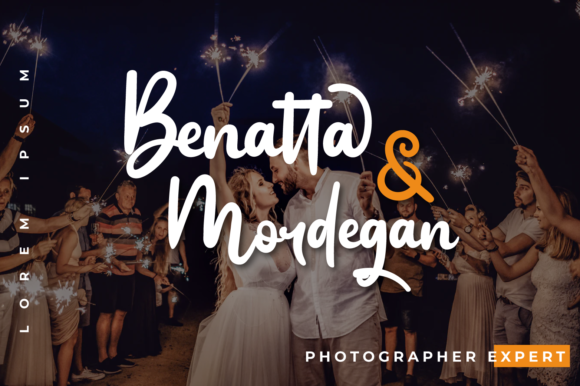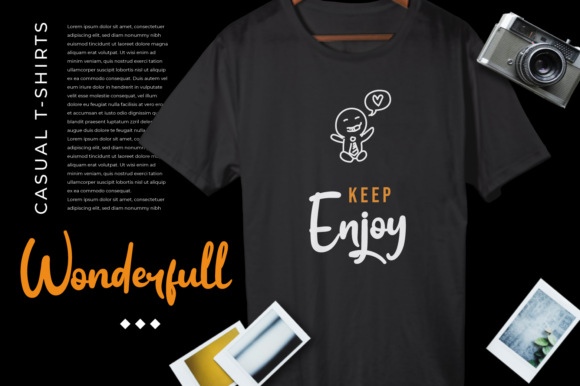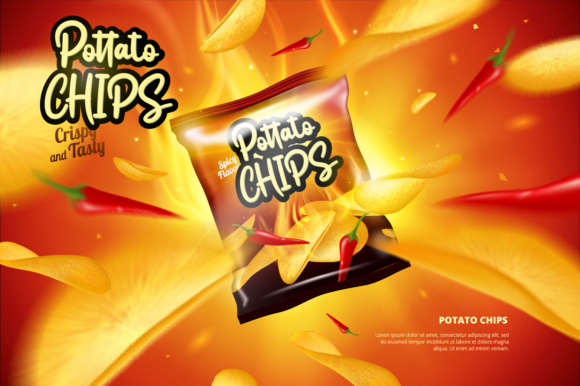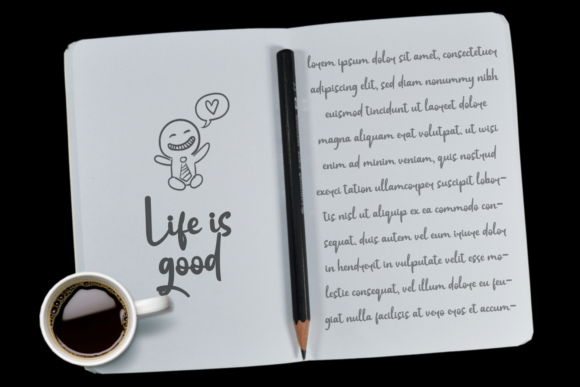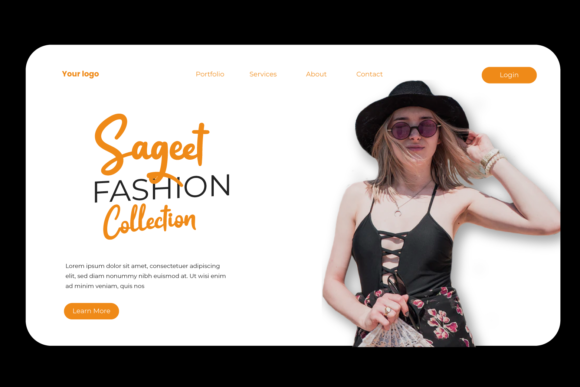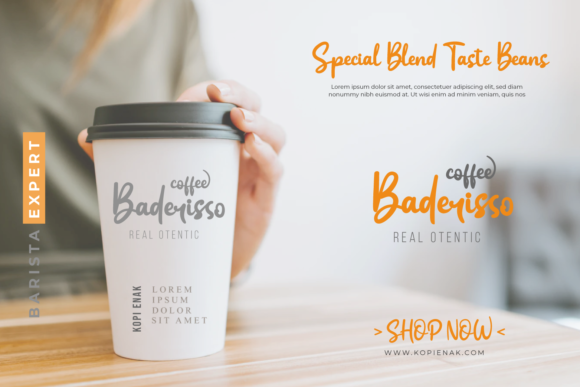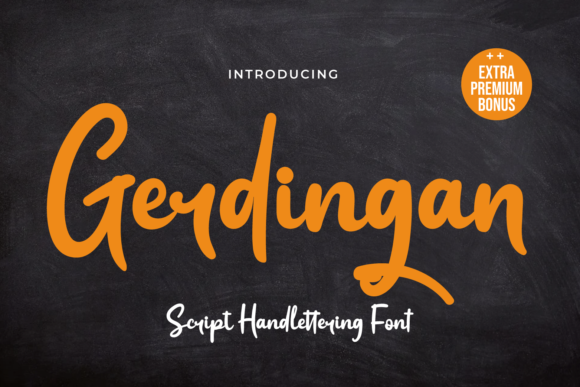
Gerdingan Font: The Sweet Brushed Handwritten Font for Stunning Designs
Are you a designer or crafter looking for a unique and beautiful font to elevate your designs? Look no further than Gerdingan Font! This sweet brushed handwritten font is the perfect choice for creating eye-catching logos, branding, and quotes that will leave a lasting impression. In this article, we’ll dive into the world of Gerdingan Font and explore its features, benefits, and uses.
What is Gerdingan Font?
Gerdingan is a carefully crafted brushed handwritten font that exudes a sense of warmth and personality. Every letter has a unique and beautiful touch, which will make your design come alive! The font’s smooth, flowing lines and subtle imperfections give it a humanized feel that’s perfect for creating designs that resonate with your audience.
Key Features of Gerdingan Font
• Unique and Beautiful Touch: Each letter in Gerdingan Font has a distinct character that sets it apart from other fonts. The subtle variations in line width, shape, and size create a visually appealing effect that’s sure to capture attention.
• Sweet Brushed Handwritten Style: The font’s brushed handwritten style gives it a soft, romantic feel that’s perfect for designs that require a personal touch.
• High-Quality Design: The font is designed with high-quality craftsmanship in mind, ensuring that it looks stunning in any design application.
Benefits of Using Gerdingan Font
So, why choose Gerdingan Font for your design projects? Here are just a few benefits of using this amazing font:
• Stand Out from the Crowd: With Gerdingan Font, you can create designs that stand out from the crowd and leave a lasting impression on your audience.
• Emotional Connection: The font’s sweet, brushed handwritten style helps create an emotional connection with your audience, making your designs more relatable and engaging.
• Versatility: Gerdingan Font is versatile and works well for a wide range of design applications, from logos and branding to quotes and social media graphics.
• Time-Saving: With Gerdingan Font, you can create stunning designs in no time, saving you hours of design time and effort.
Use Cases for Gerdingan Font
Gerdingan Font is perfect for a wide range of design projects, including:
• Logo Design: Create a stunning logo that represents your brand’s personality and values.
• Branding: Use Gerdingan Font to create a consistent brand identity that resonates with your audience.
• Quotes and Social Media Graphics: Add a touch of elegance and sophistication to your quotes and social media graphics.
• Stationery and Packaging: Use Gerdingan Font to create beautiful stationery and packaging that reflects your brand’s personality.
Tips and Tricks for Using Gerdingan Font
Here are some tips and tricks to help you get the most out of Gerdingan Font:
• Experiment with Colors: Try out different colors and combinations to find the perfect match for your design.
• Play with Typography: Experiment with different typography styles, such as bold, italic, and underline, to add emphasis and create visual interest.
• Add Texture and Patterns: Add texture and patterns to your design to give it a unique and eye-catching effect.
In conclusion, Gerdingan Font is a sweet brushed handwritten font that’s perfect for designers and crafters looking to create stunning designs. With its unique and beautiful touch, ease of use, and high-quality design, Gerdingan Font is the perfect choice for creating eye-catching logos, branding, and quotes. So why wait? Download Gerdingan Font today and take your designs to the next level!